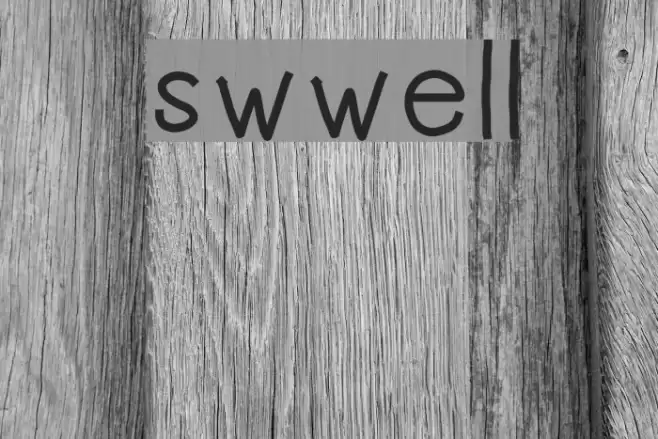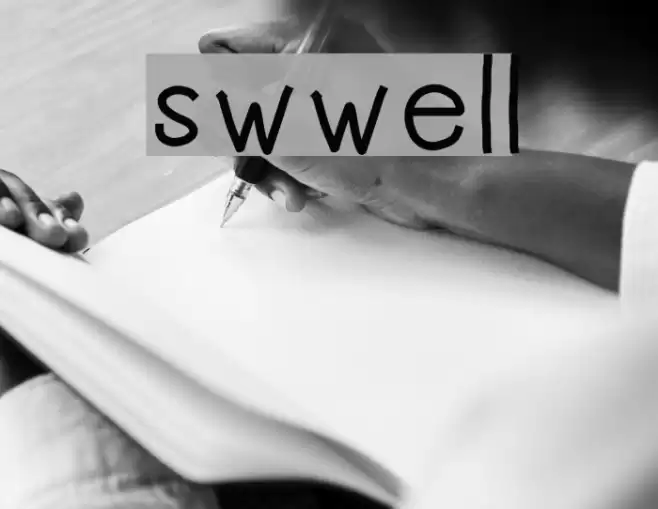
swwell Font
swwell Description
This playful and quirky font features a handwritten style with irregular strokes and a casual feel. The uppercase letters are slightly larger and more pronounced, while the lowercase letters maintain a consistent flow with a whimsical touch. The characters have a unique charm, with some letters featuring unexpected twists and turns, adding to the font's overall personality. The numbers and special characters are designed to match the playful aesthetic, making this font suitable for creative and informal projects.
A playful, handwritten font with quirky, irregular strokes from Handwritten fonts.
- Proposed Projects: Ideal for children's books, greeting cards, playful branding, and creative posters.
- Overall Style: Casual, Playful
- Use Case: Headlines, Informal text, Creative projects